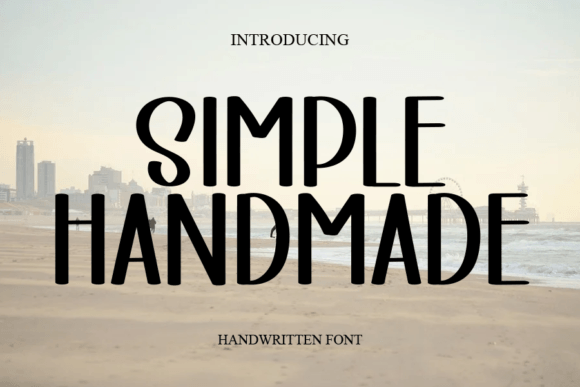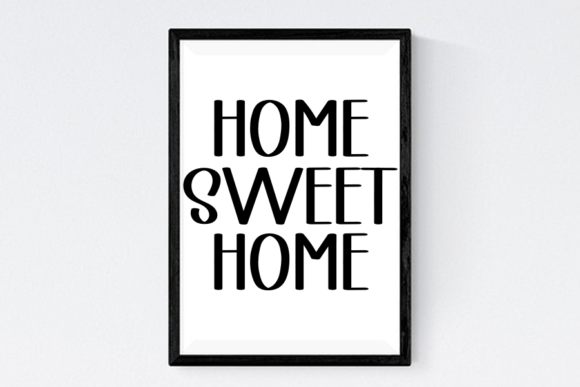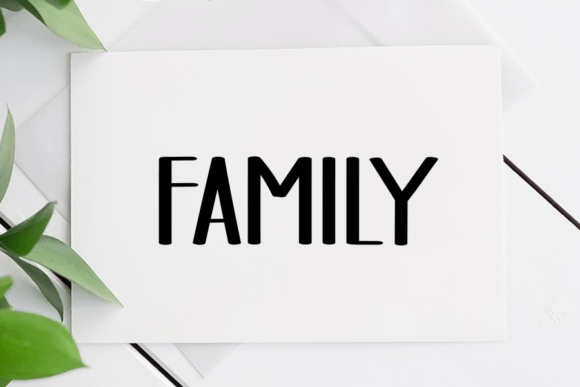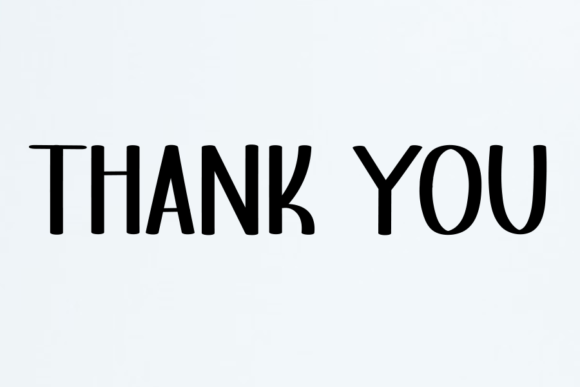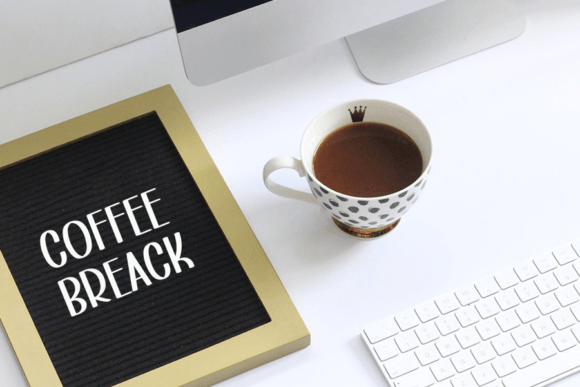
Simple Handmade Font
About Simple Handmade Font
“Simple Handmade” is a casual and friendly handwritten font that exudes approachability and warmth. This versatile font has the potential to become your favorite choice for a wide range of design projects, making it a reliable go-to font for any occasion.
One of the standout qualities of “Simple Handmade” is its ability to convey a sense of casualness and friendliness. The font’s characters possess a relaxed and welcoming quality that adds character to your designs. “Simple Handmade” is a versatile choice for projects where you want to create a friendly and approachable atmosphere.
The flexibility of “Simple Handmade” ensures that it can be effectively used across different creative applications. Whether you’re working on DIY crafts, designing digital graphics that require a personal and friendly touch, creating engaging presentations, sending warm greetings with personalized cards, or simply aiming to infuse a sense of simplicity and approachability into your content, “Simple Handmade” adapts seamlessly to your creative vision.
“Simple Handmade” stands out as a font that brings a sense of authenticity and friendliness to your designs. Its handwritten style adds a personal and genuine touch to your projects, making them feel both approachable and inviting. It’s the kind of font that resonates with simplicity and charm, making it a reliable choice for a variety of design endeavors.
Incorporating “Simple Handmade” into your design projects will likely result in outcomes that are not only friendly and approachable but also full of character and warmth. Its casual and friendly appearance makes it an excellent choice for creating designs that connect with your audience on a personal level. Embrace the simplicity and friendliness of “Simple Handmade” in your next project, and experience how it adds a layer of warmth and authenticity to your creations, no matter the occasion.